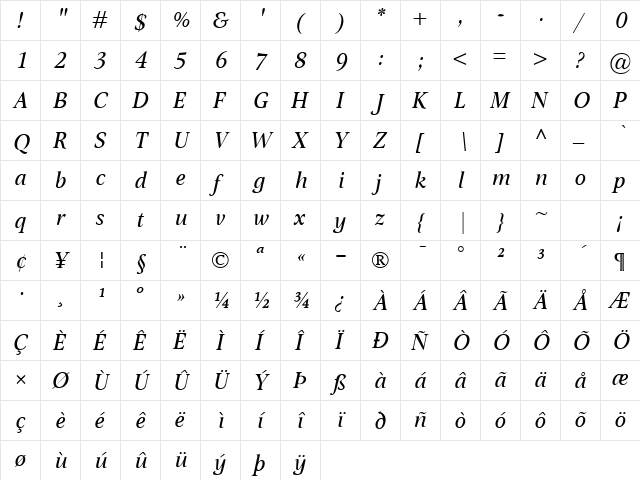
Omnibus Italic
Design Context for Omnibus Typeface
Omnibus is a composed and adaptable typeface that performs quietly and consistently across a wide range of design contexts. The slanted form adds forward momentum and visual energy.
Pro Tip: Use Omnibus for emphasis, pull quotes, and subheadings where its slanted energy can add rhythm to the layout.